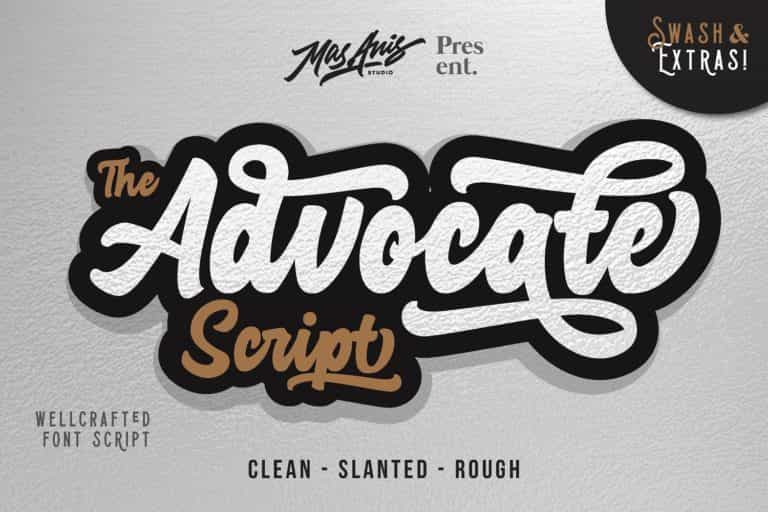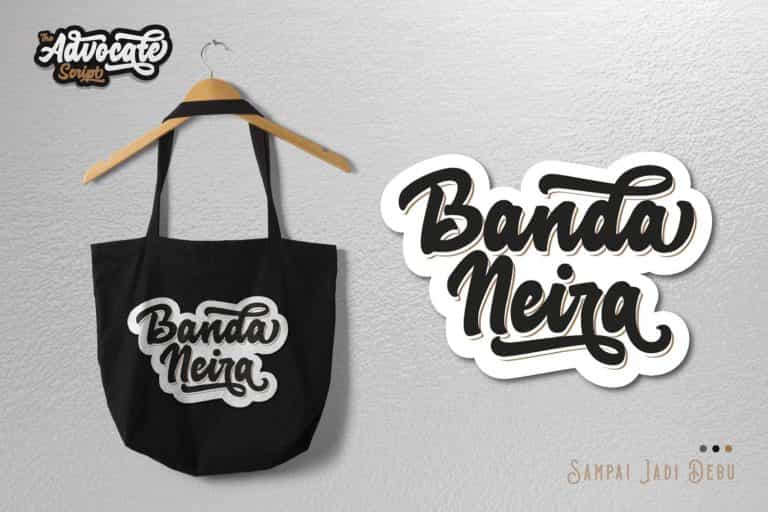
The Advocate Script is a brand new simple bold script we made for you, with classic neat hand lettering style, attractive swashes, and alternates to make your design easier to work. Ideal for logos, handwritten quotes, product packaging, header, poster, merchandise, social media, greetings, and cards. For you all who wanna make epic classic logo, this font also come with rough effect version which will make your logo have more classic and just old fine feel.